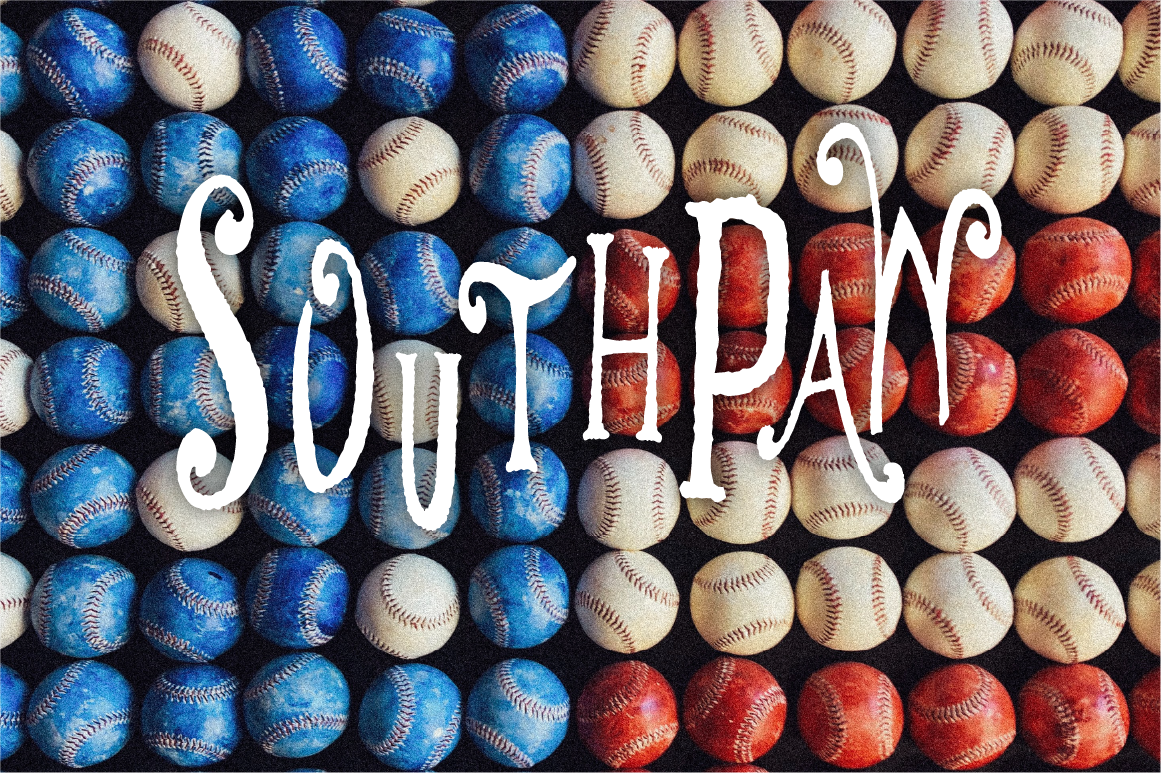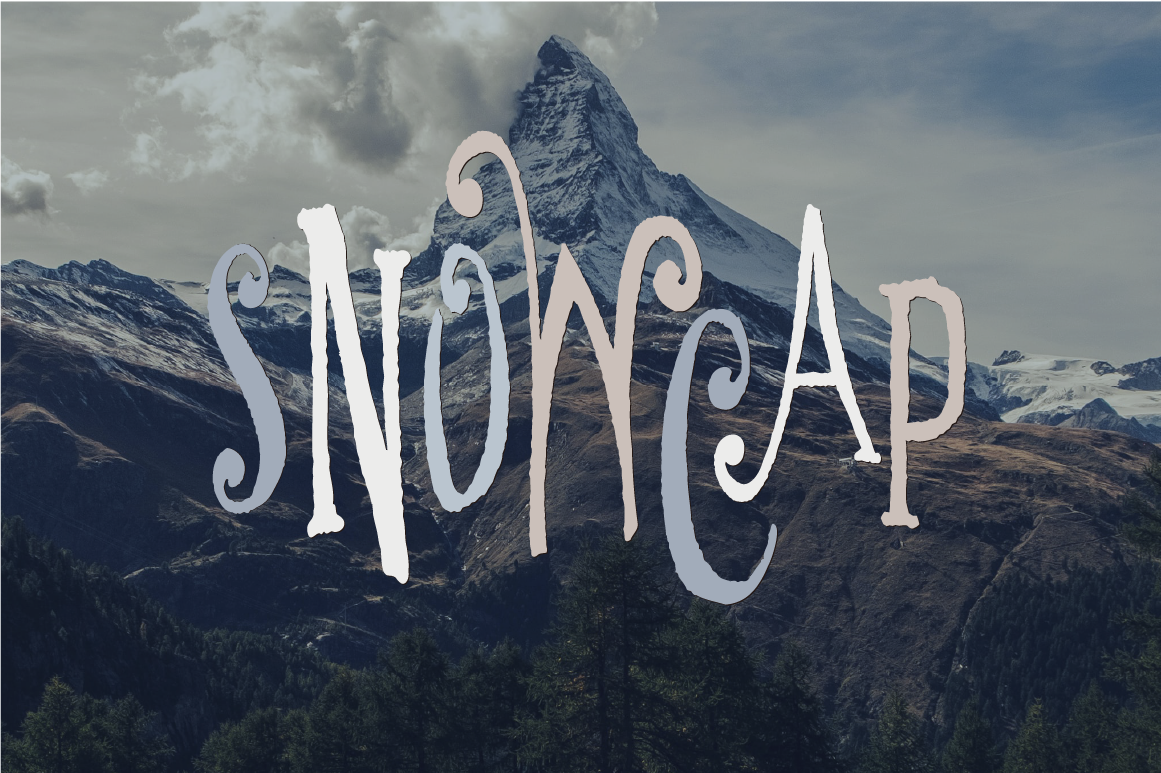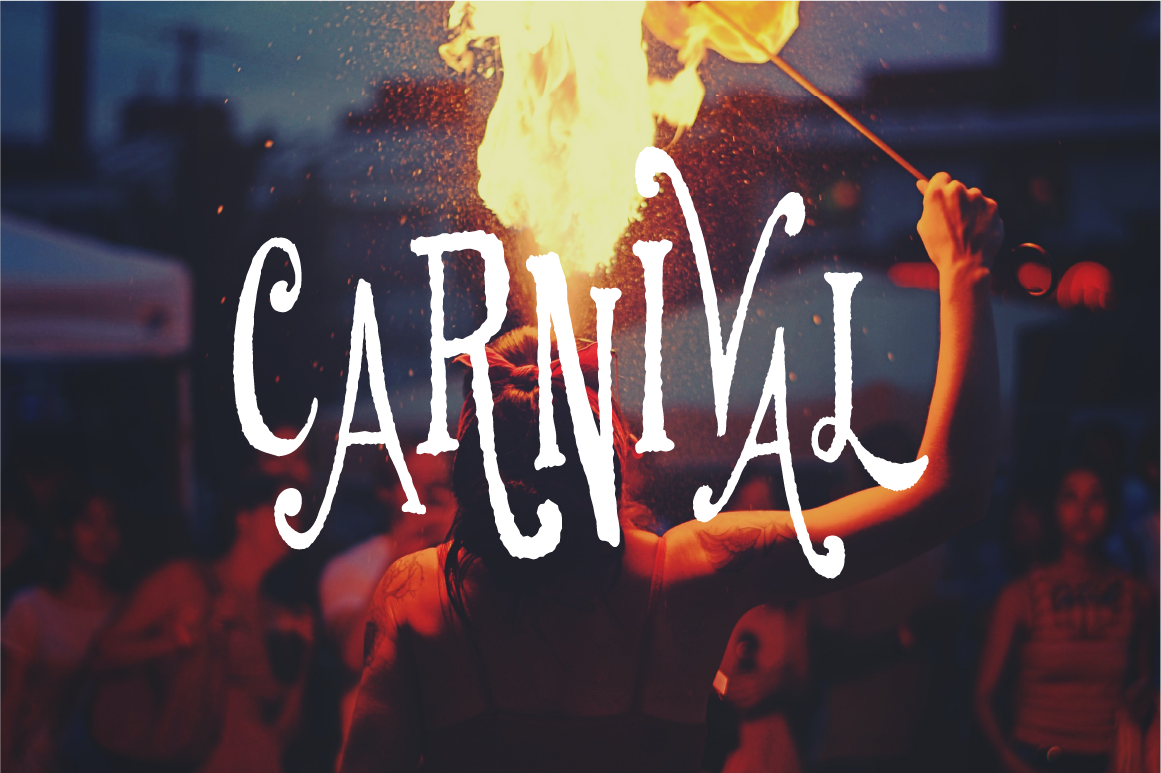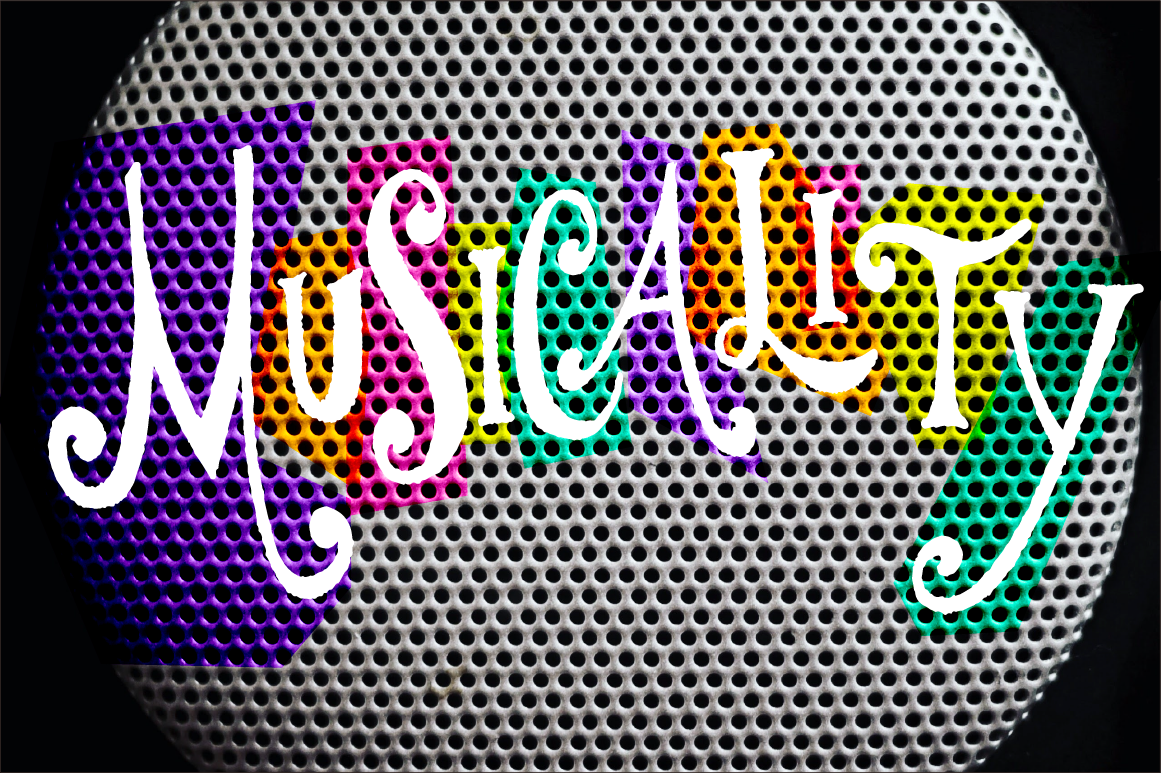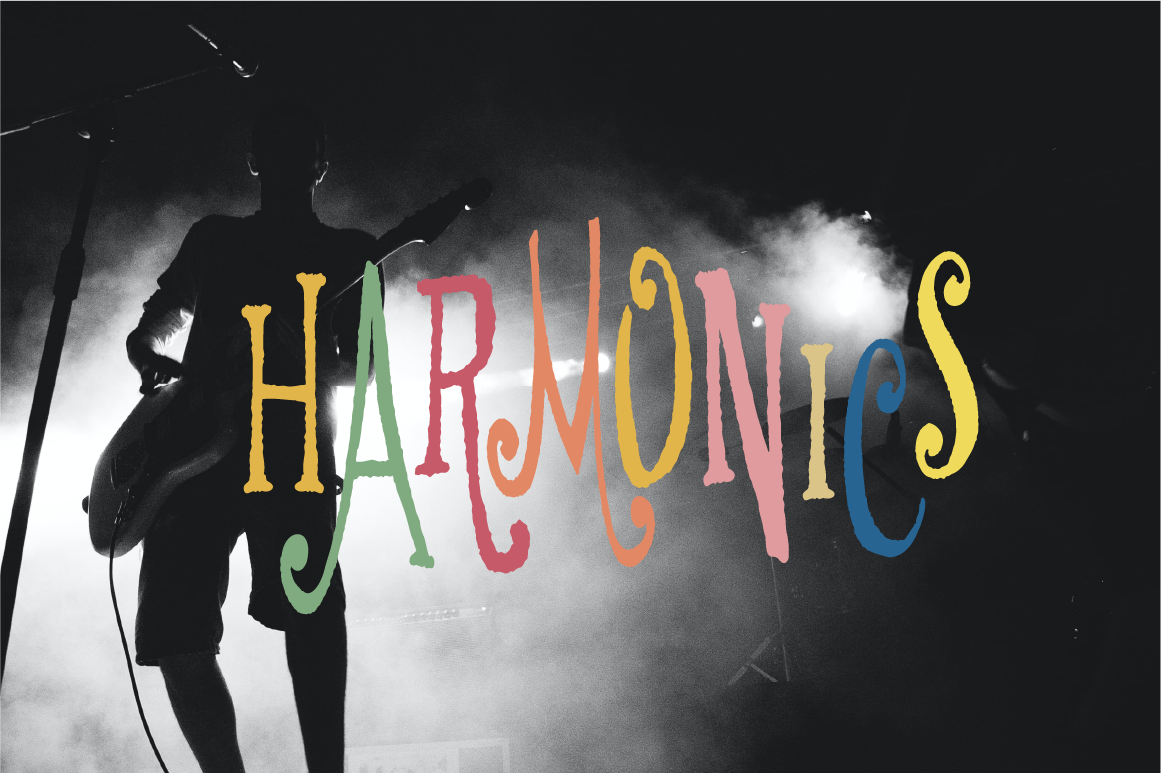
Reminiscent of the quirky music of ice cream trucks and carnivals, you can use this hand-drawn font in any project that needs a fun and slightly offbeat atmosphere.